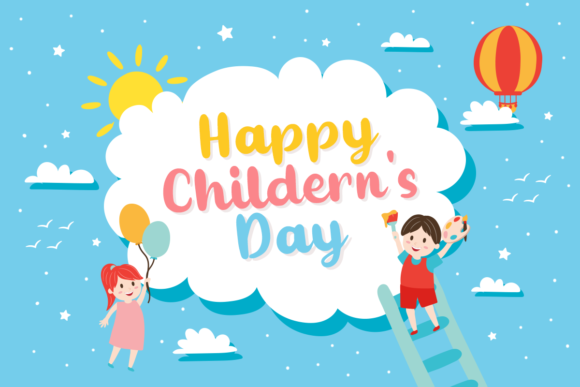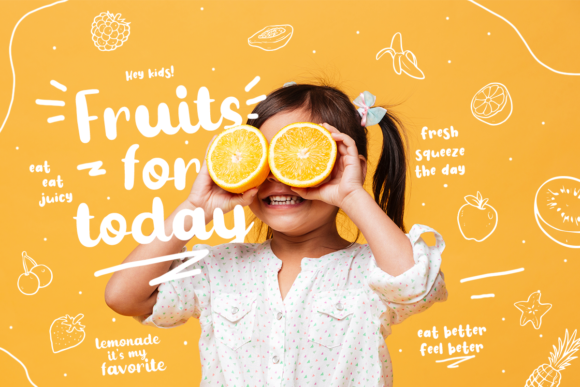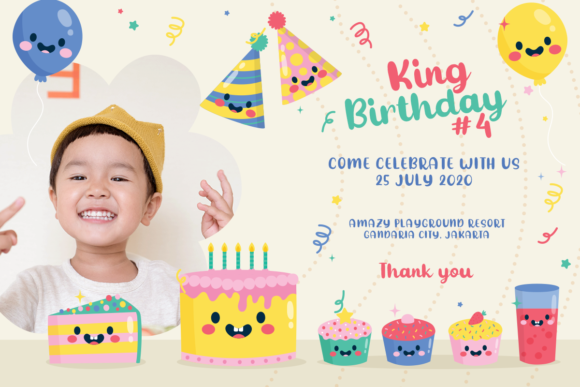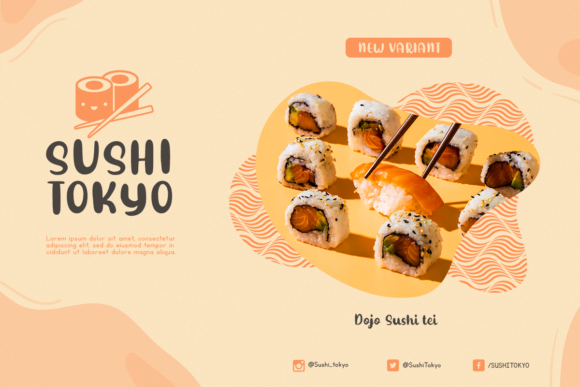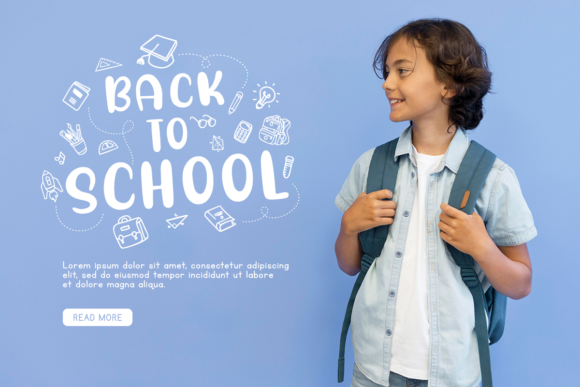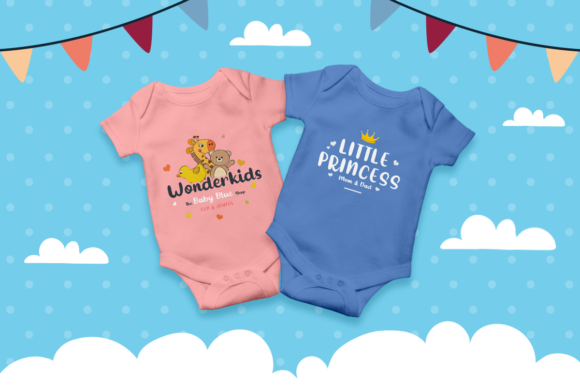
Unlock the Power of Joyful Typography
Have you ever been working on a design project, pouring your heart and soul into it, only to feel like something is missing? That’s where the magic happens – when you stumble upon the perfect font that elevates your entire creation. For designers, finding the right font can make all the difference in bringing a concept to life.
Introducing the Born to Shine Font, a delightful display font that’s sure to add a dash of joy to your designs. This cute and friendly font is perfect for adding a playful touch to your creative projects. Whether you’re designing a logo, a social media graphic, or a poster, the Born to Shine Font is sure to make your designs stand out from the crowd.
By incorporating the Born to Shine Font into your designs, you’ll not only add a touch of whimsy but also create a lasting impression on your audience. So why settle for ordinary when you can make your designs shine with this beautiful display font?
- Unique Characteristics: The Born to Shine font features a unique blend of modern and vintage elements, with a bold and playful style that is perfect for creative and attention-grabbing designs.
Review: Born to Shine Font
As a designer, I was excited to dive into the Born to Shine Font. Here’s my honest review.
This font has a certain charm to it. The playful, handwritten feel makes it perfect for creative projects or anything that needs a touch of personality.
- It’s highly legible, even at smaller font sizes.
- The font family is well-designed, with a clear hierarchy between bold and regular weights.
- It’s great for projects that need a modern, yet approachable feel.
While I love the overall feel of the font, there are a few limitations to consider.
- The font may not be the best choice for formal or professional projects.
- The irregularities in letter spacing can make it difficult to read at very large font sizes.
- It may not be suitable for projects that require a lot of technical or scientific content.
Overall, I think the Born to Shine Font is a great addition to any designer’s toolkit. While it may not be perfect for every project, it’s a great choice for anything that needs a touch of personality and creativity.
Getting the Most Out of the Font
To get the most out of the Born to Shine font, use it for:
- Wedding invitations and event graphics
- Personal projects and creative expressions
The Born to Shine font is commonly used for:
- Creating a bold and eye-catching look
- Adding a touch of elegance and sophistication
- Conveying a sense of confidence and energy